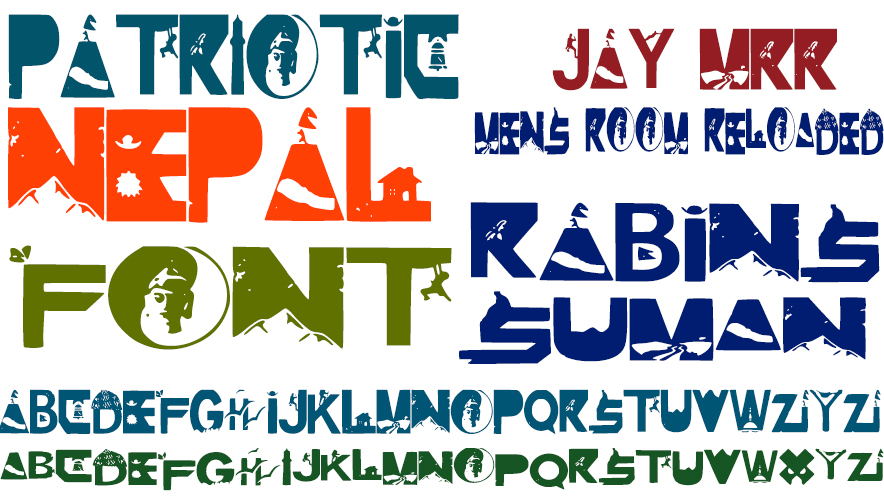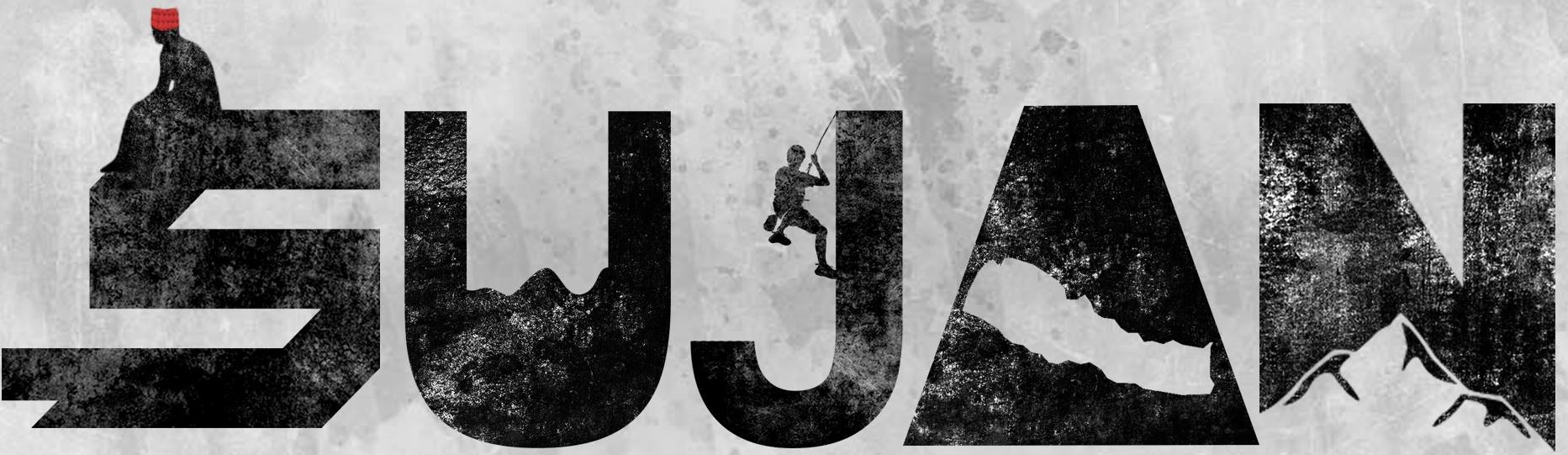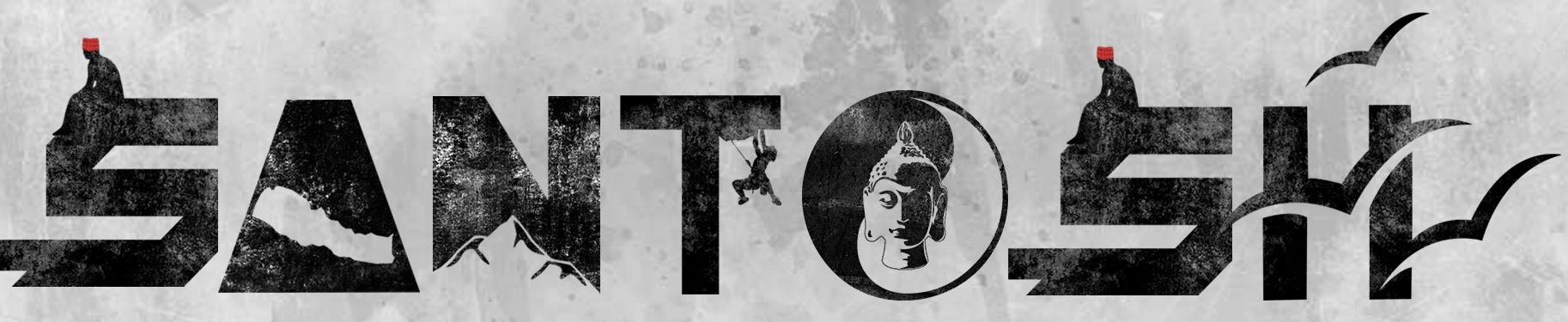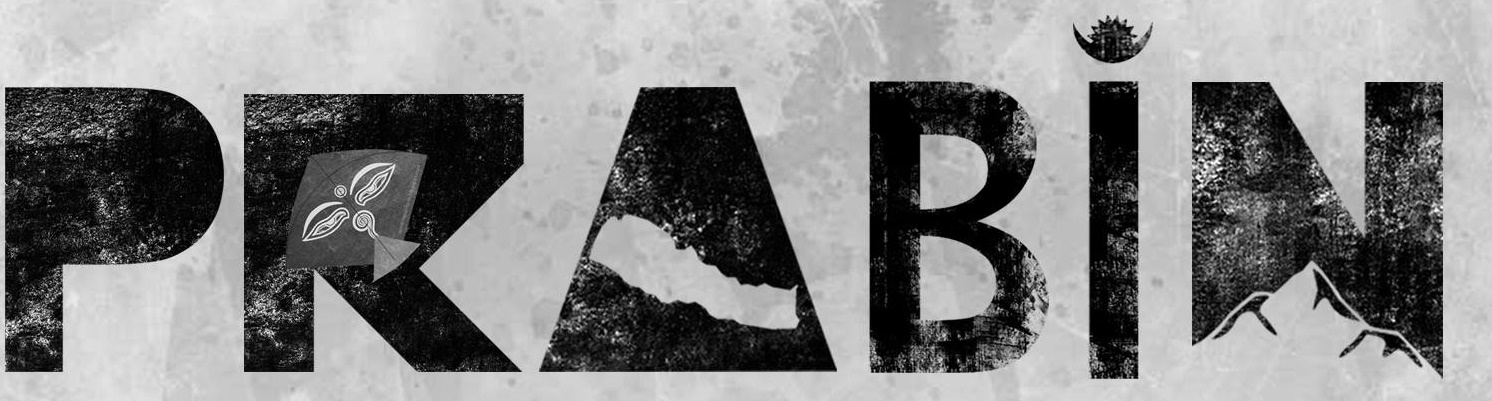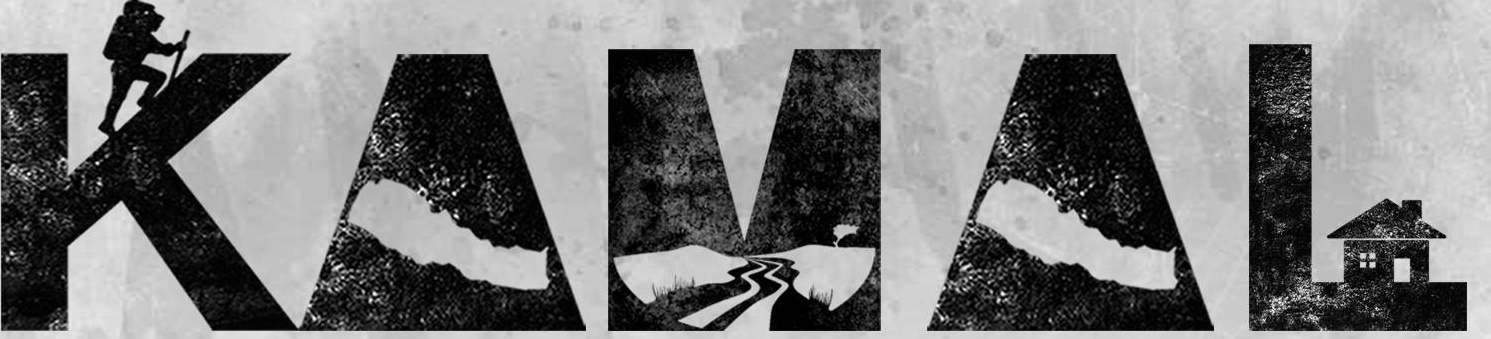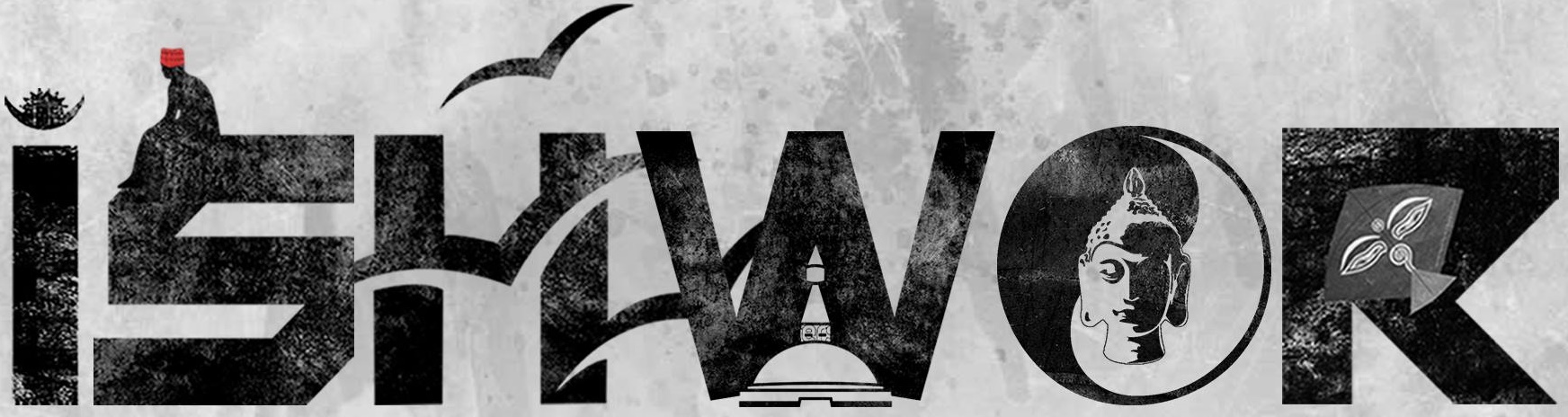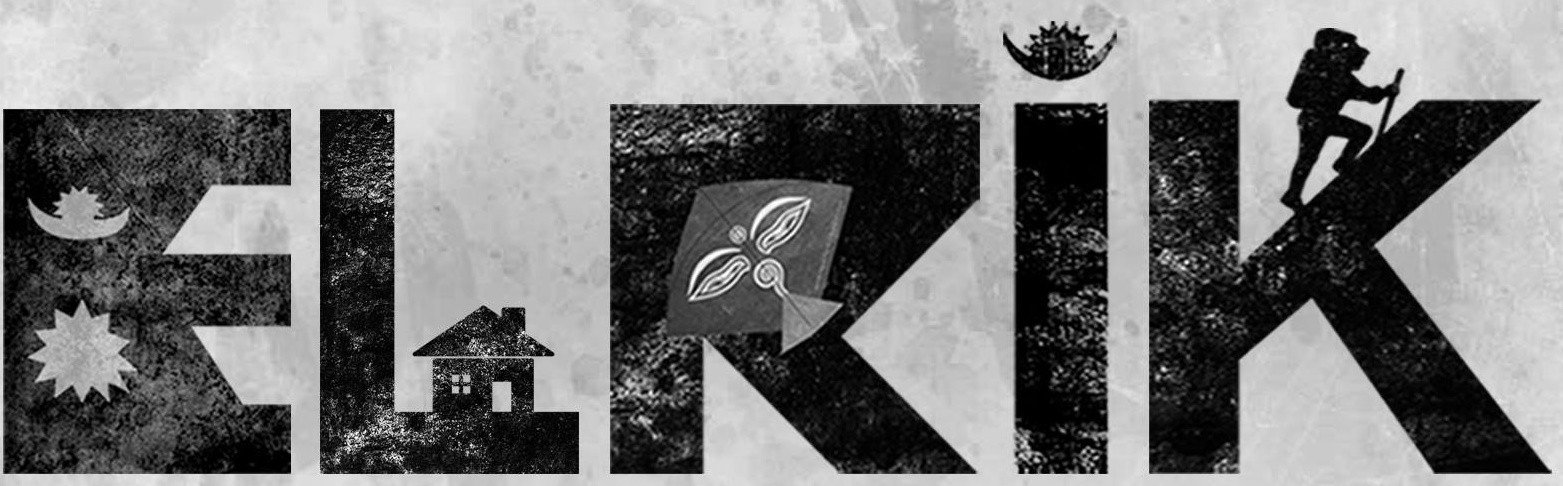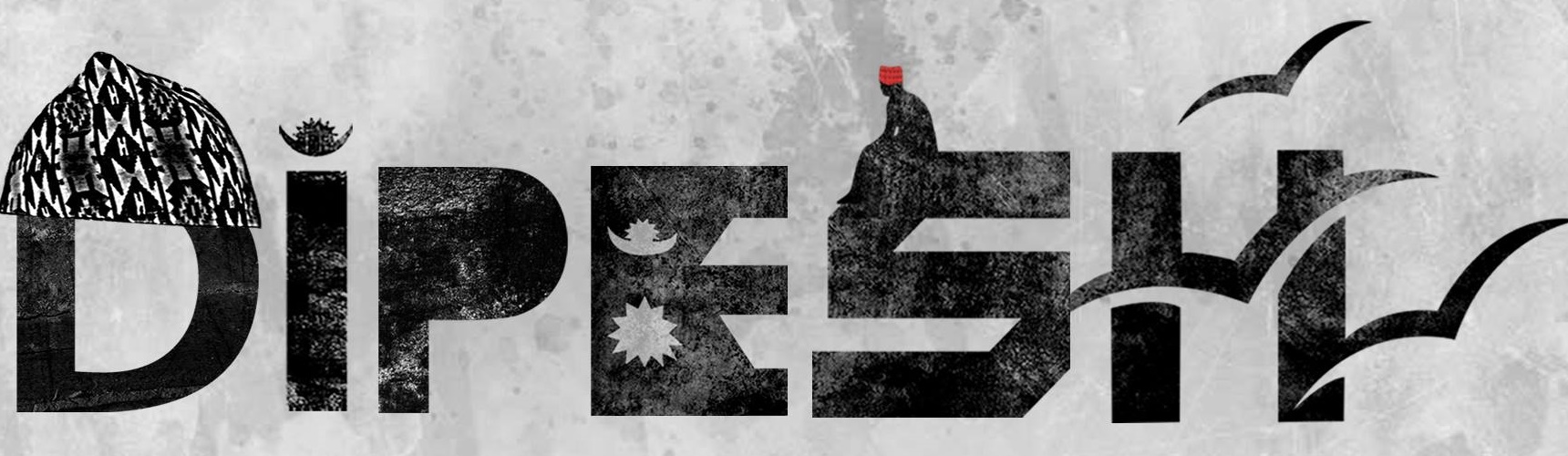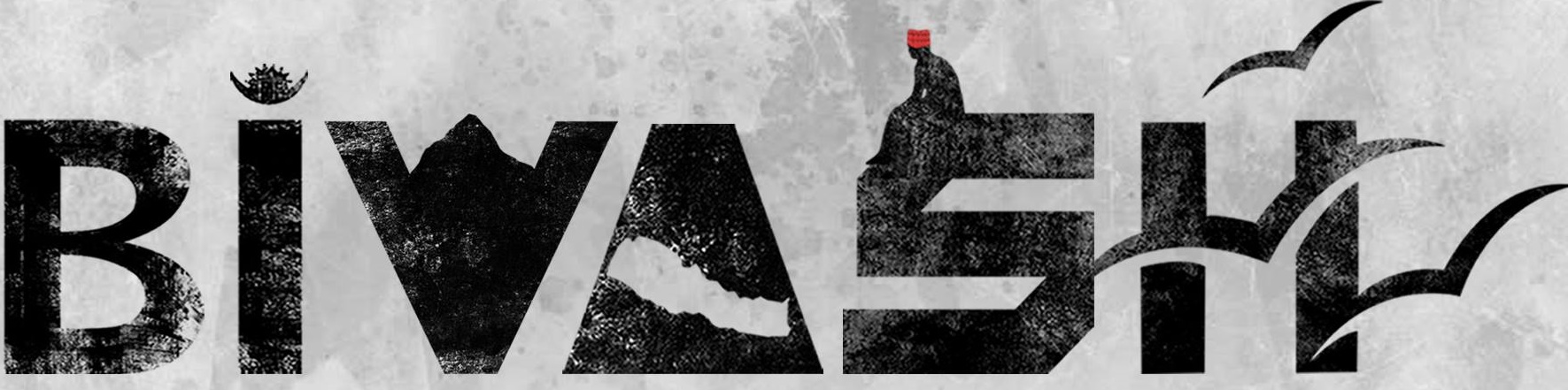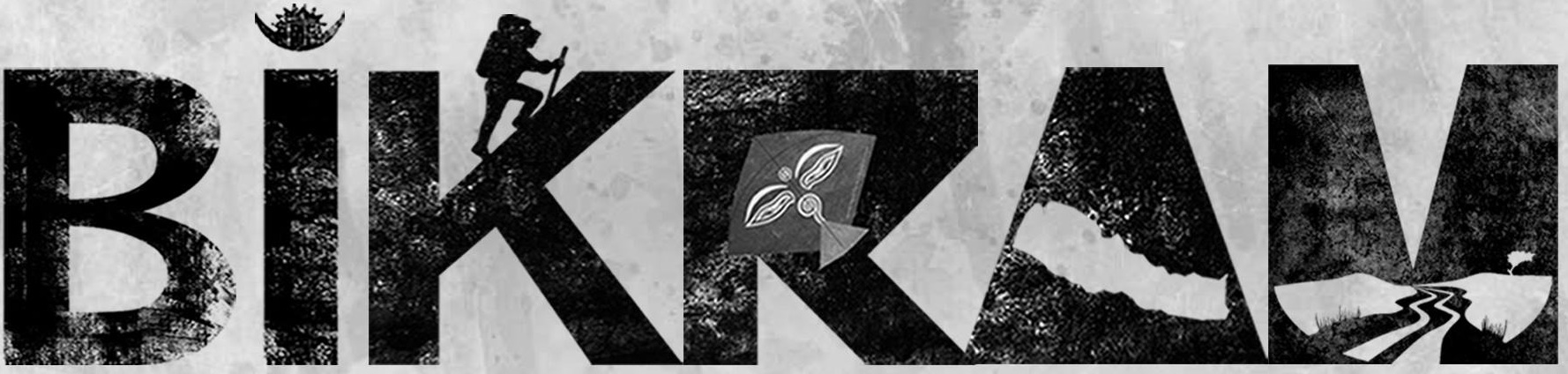
Patriotic Nepal (RabinsXP Font)
Patriotic Nepal, as a font helps anyone who loves Nepal to reflect their love towards motherland by typing their names using this very font. And if you are looking for any graphic art or photoshop creations, this font can help many people out there who wants to present their art in a local preface. The fonts can be used in any photo editor from Android apps to Photoshop to any video editing applications. You can choose any colors, blend with any of your art, pictures. Simply use it show your love towards Nepal. That is why the font got its name as Patriotic Nepal.
Patriotic Nepal V1.5
“Patriotic Nepal” was developed by Rabins Sharma Lamichhane. The graphics work for Alphabets was done by Suman and for numerals & special symbols was done by Rabins.
List of Nepalese Name made using Patriotic Nepal (Patriotic Nepal Design)
Capital and small letters were made non-identical with slightly new design.